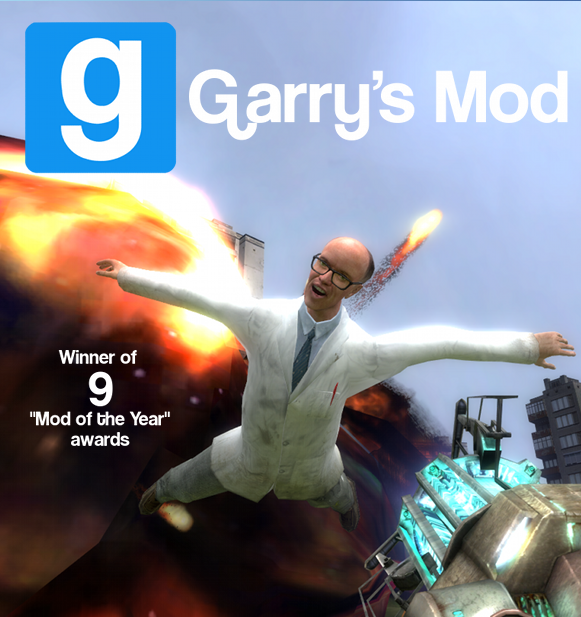
Garry's Mod Font
Fonts in UseGarry’s Mod is a sandbox physics game where players can create and manipulate objects in a virtual world. It was developed by Facepunch Studios and released in 2004.
Coolvetica, a display font designed by Canadian Ray Larabie, was likely used for the Gmod game logo. The original 1999 version had a swash G, while the updated version has a "stylistic alternate" G. Both are available for download in the Fonts Used section.